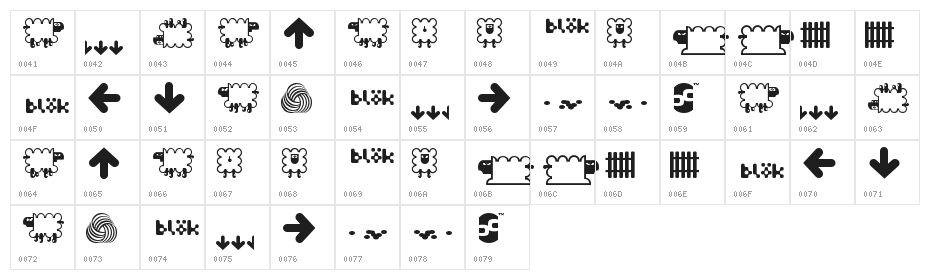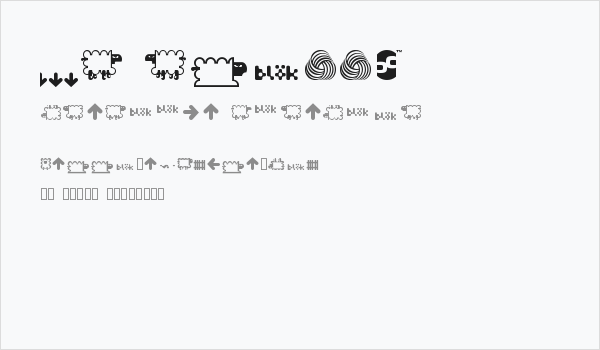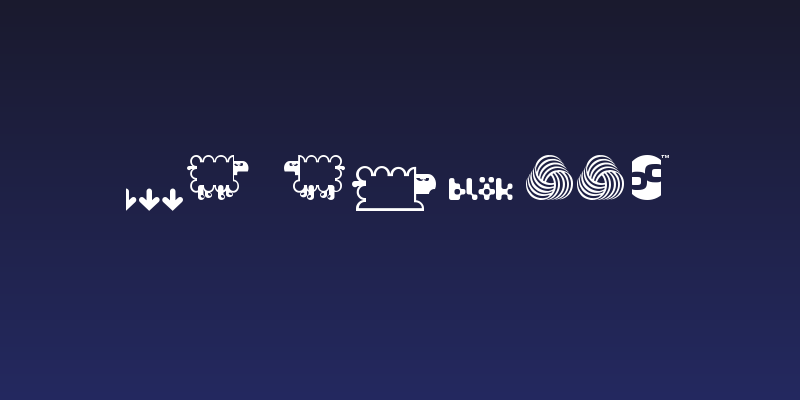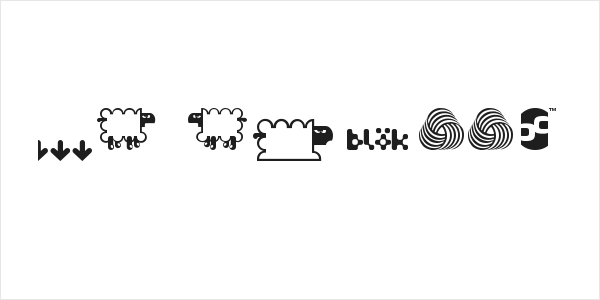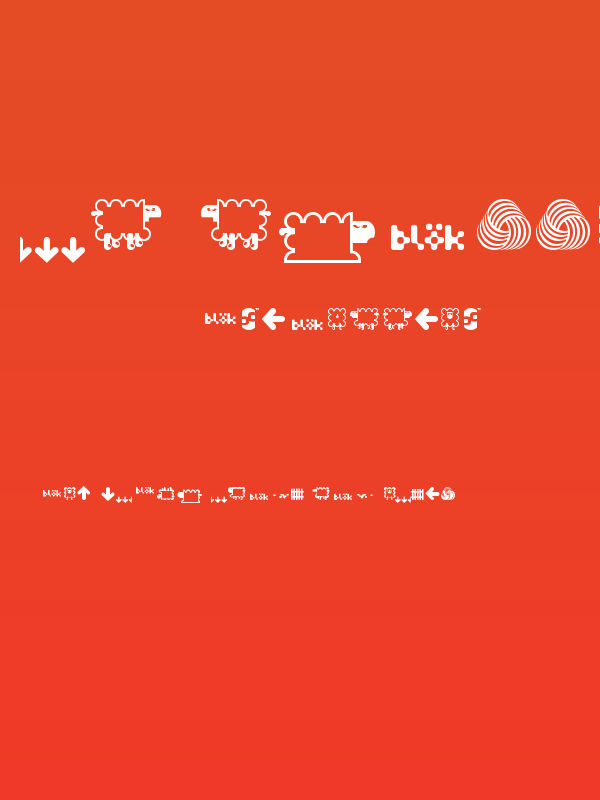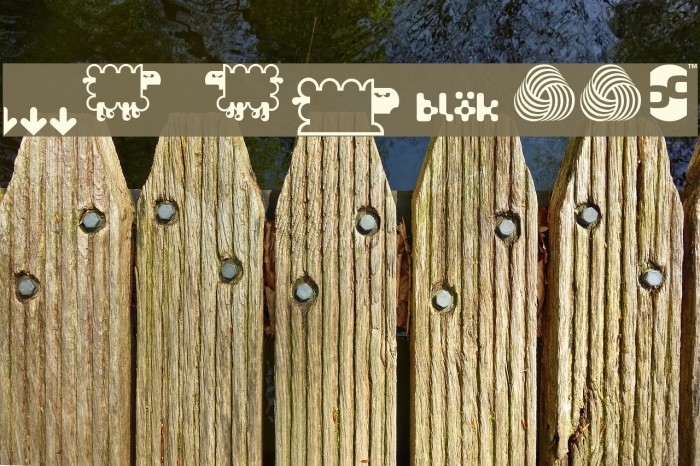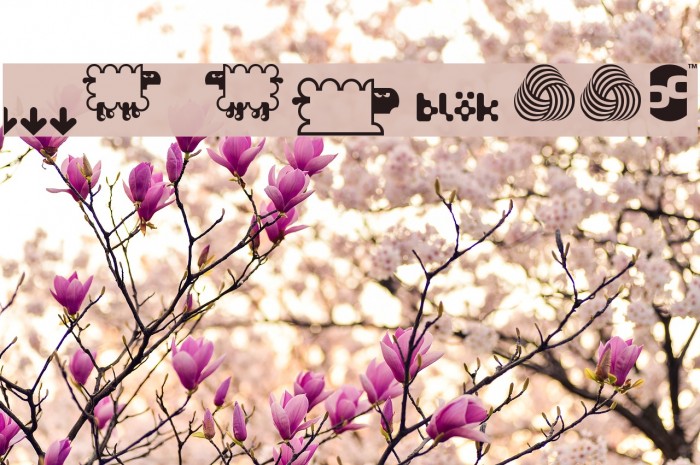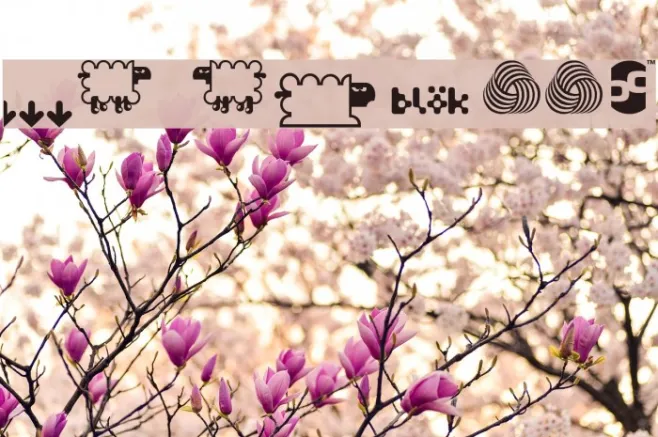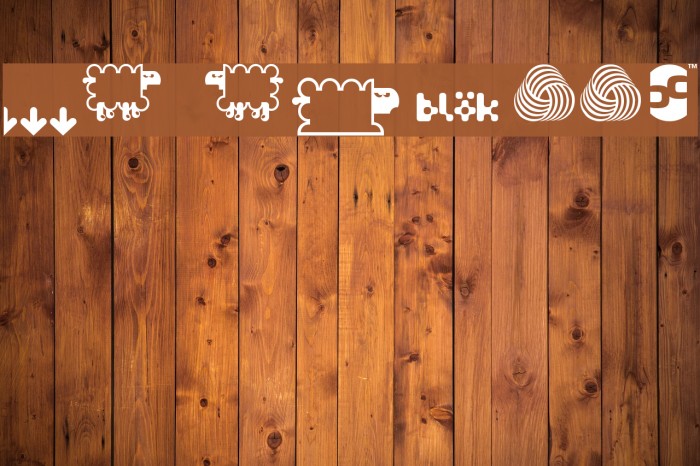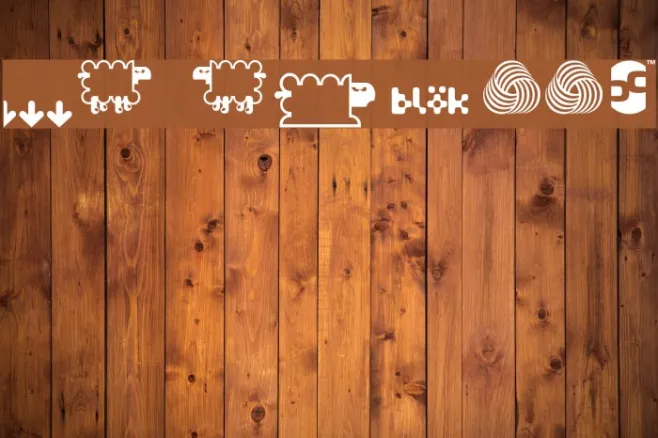
This font is a whimsical and playful collection of icons and symbols rather than traditional alphanumeric characters. It features a variety of sheep-themed graphics, arrows, and abstract shapes, creating a unique and entertaining visual experience. The design is highly decorative, with each character being a distinct and detailed illustration. The style is consistent throughout, with a focus on fun and creativity, making it suitable for projects that require a lighthearted and imaginative touch.
| Use Case | Logos, Decorative elements, Novelty items |
| Proposed Projects | Ideal for children's books, playful graphic designs, novelty items, and creative branding projects that require a fun and unique visual element. |